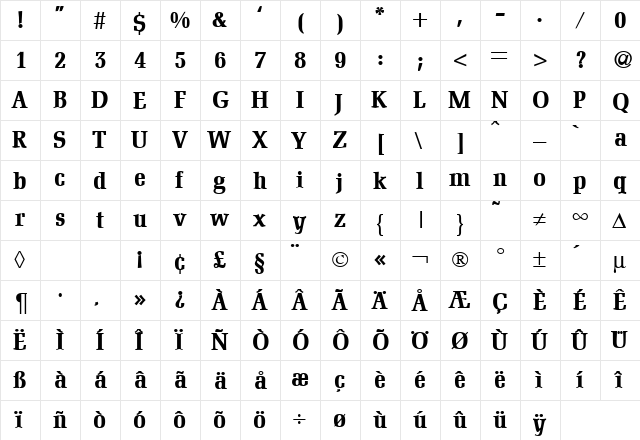
Domenica Bold Font Preview
Domenica Bold
Design Context for Domenica Typeface
Domenica takes a measured approach to typography — its balanced proportions and neutral character make it a reliable workhorse for both digital and print work. The heavy weight commands attention and anchors typographic hierarchies.